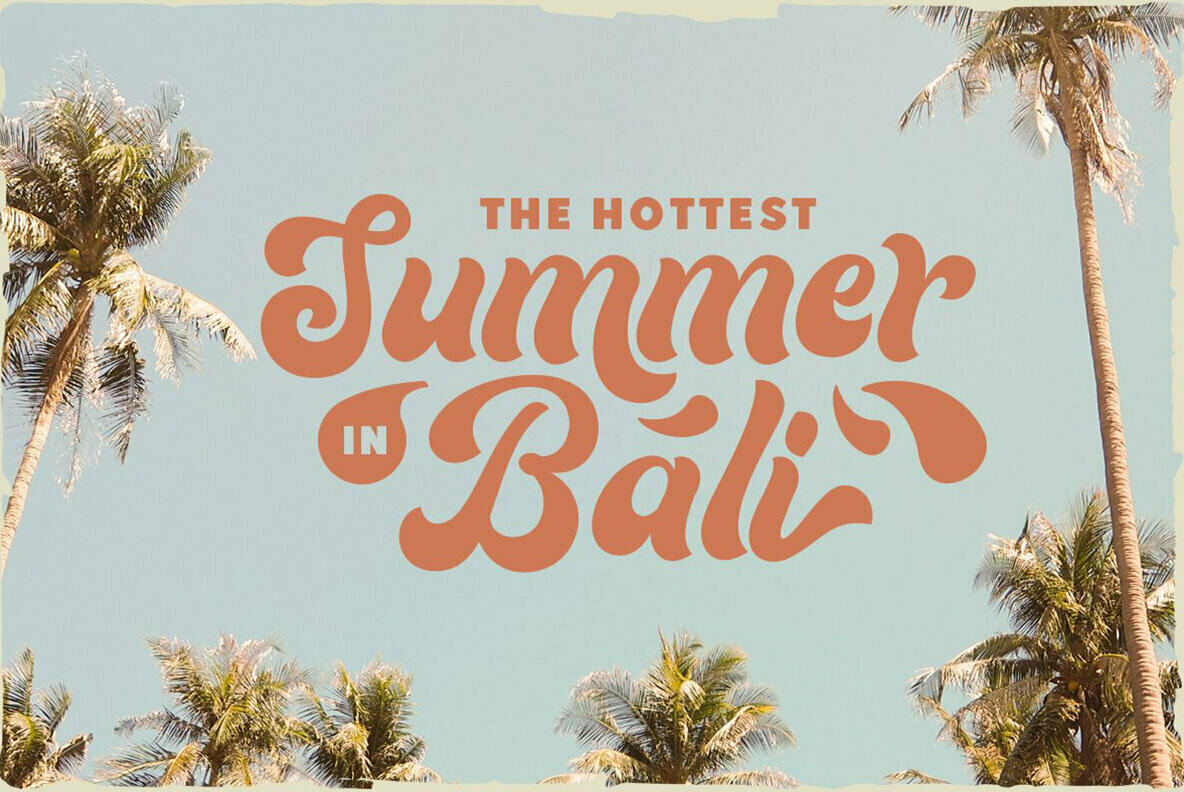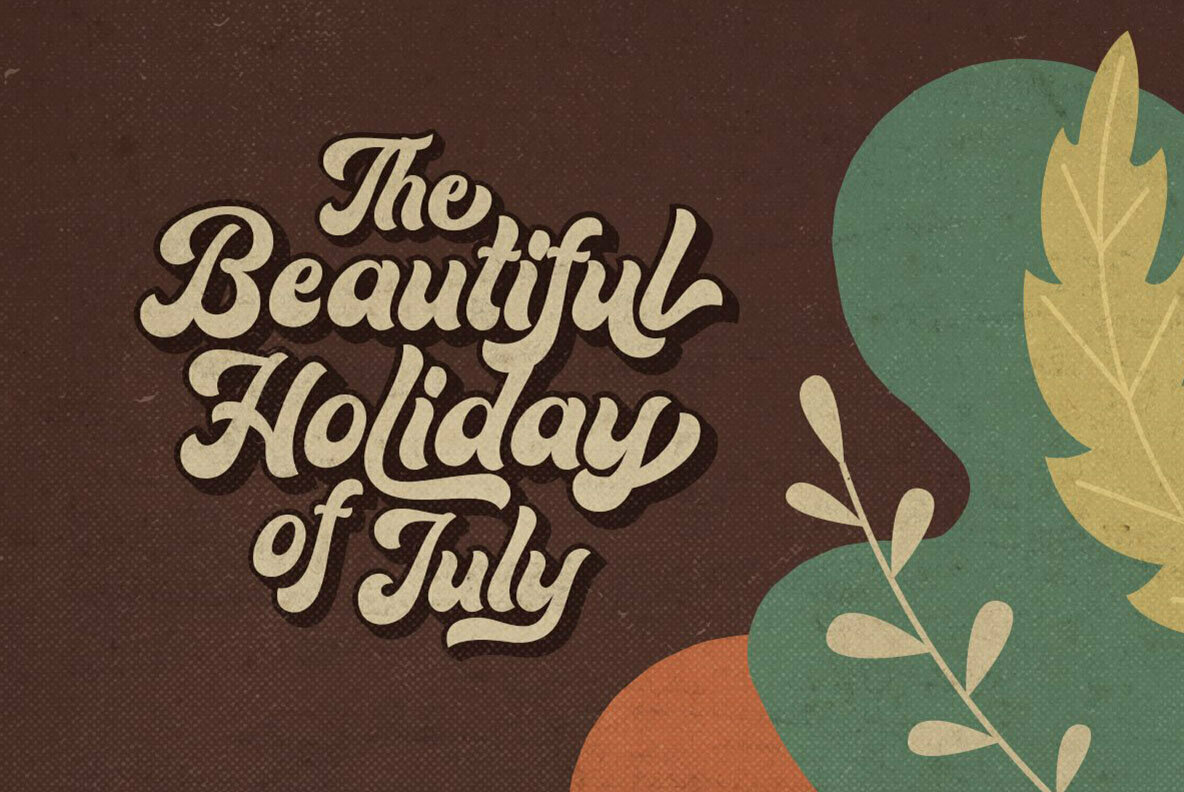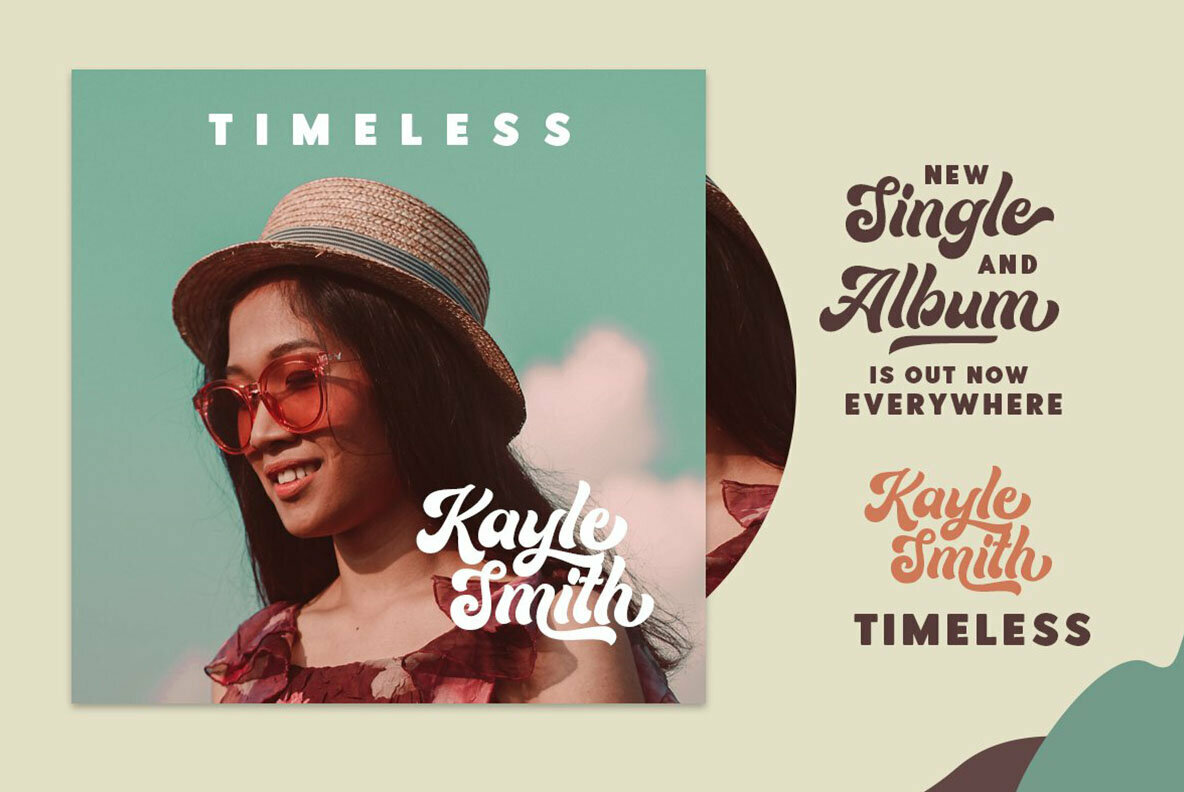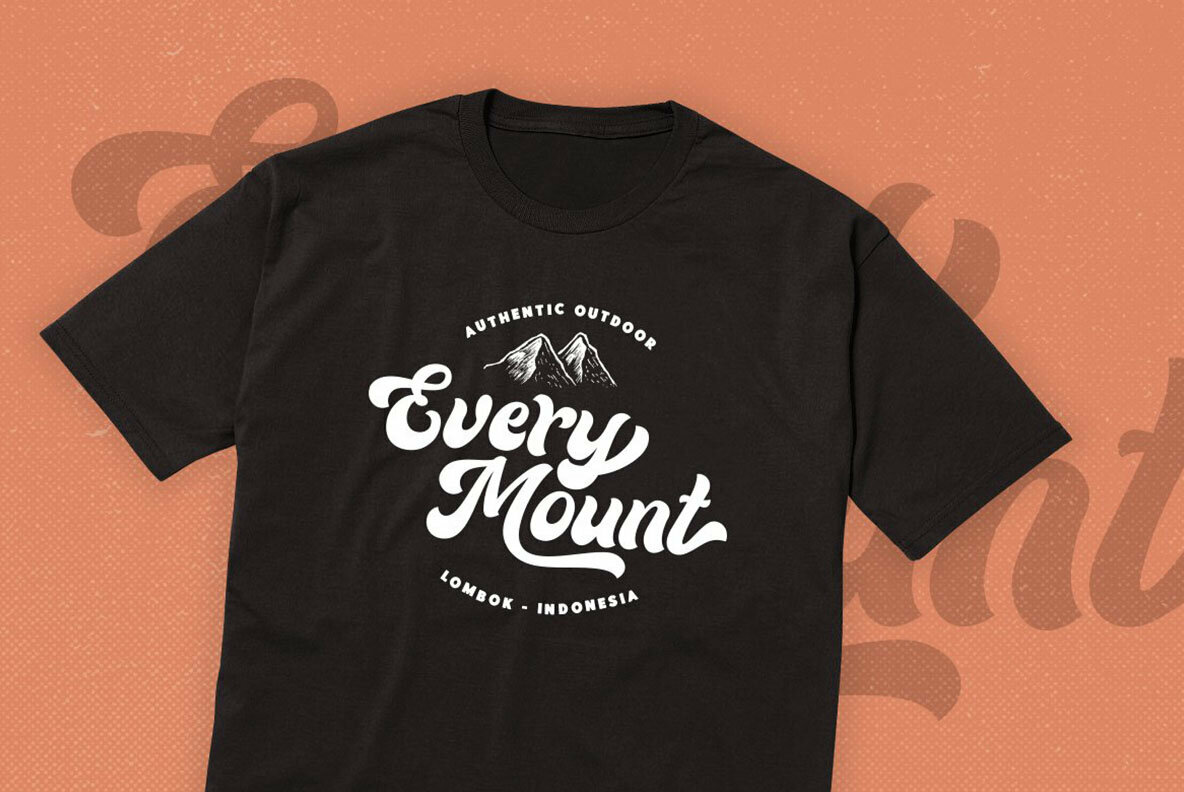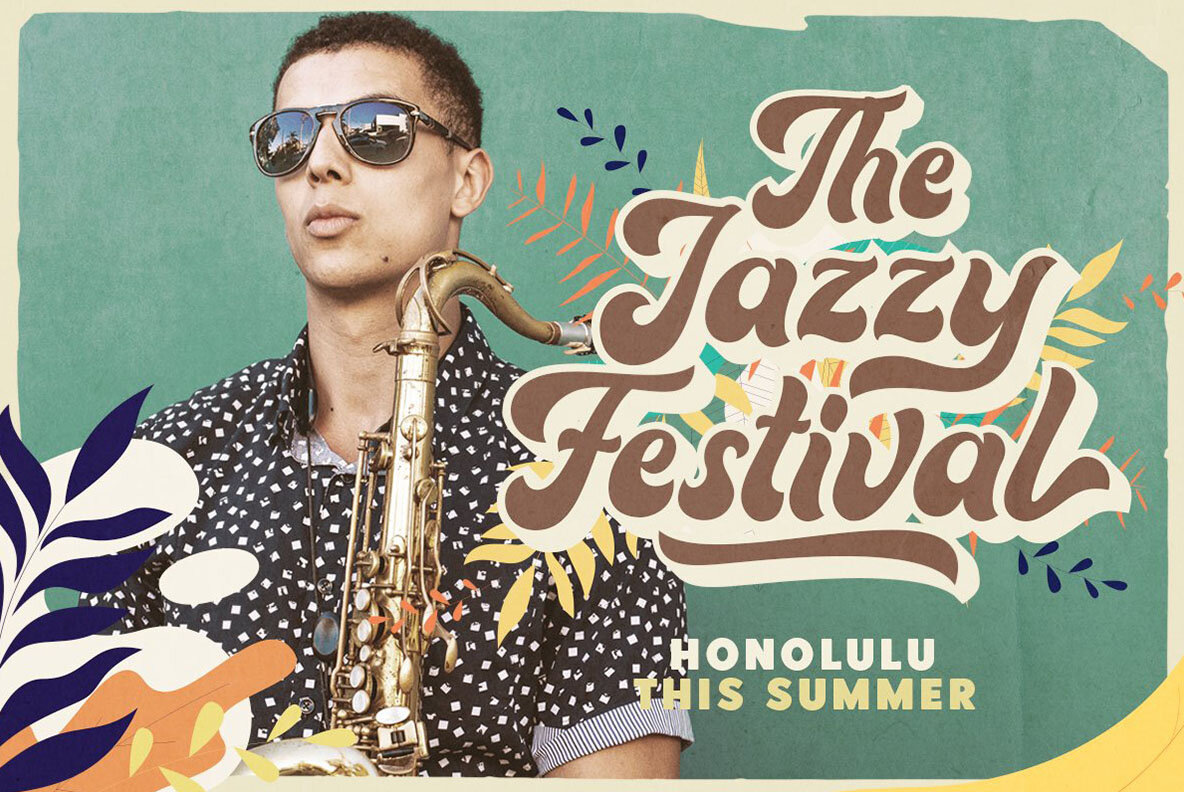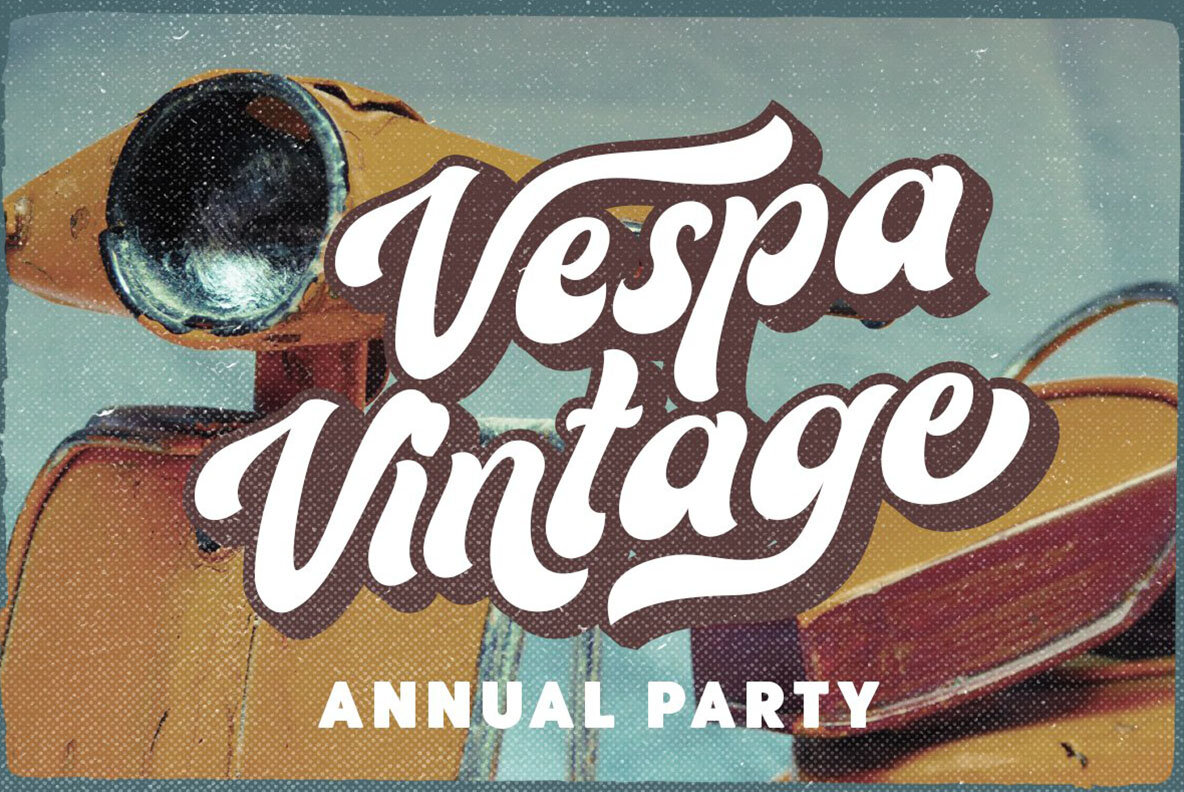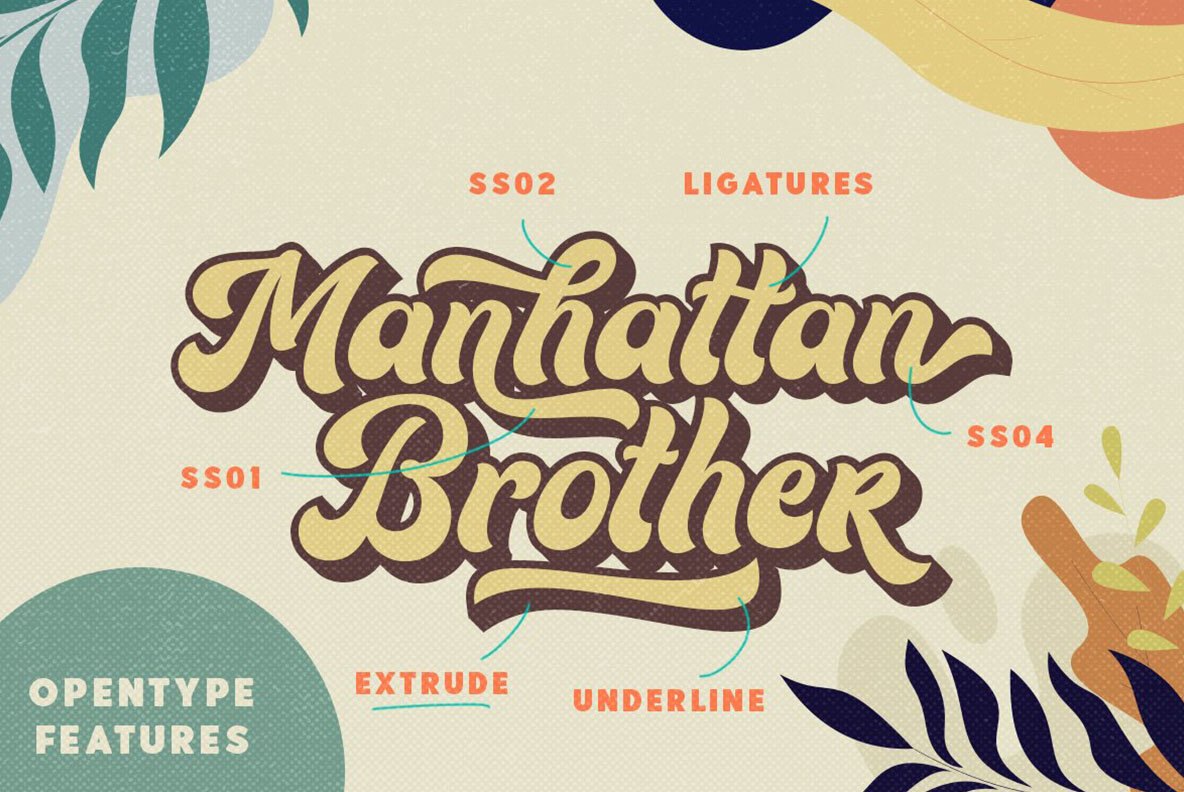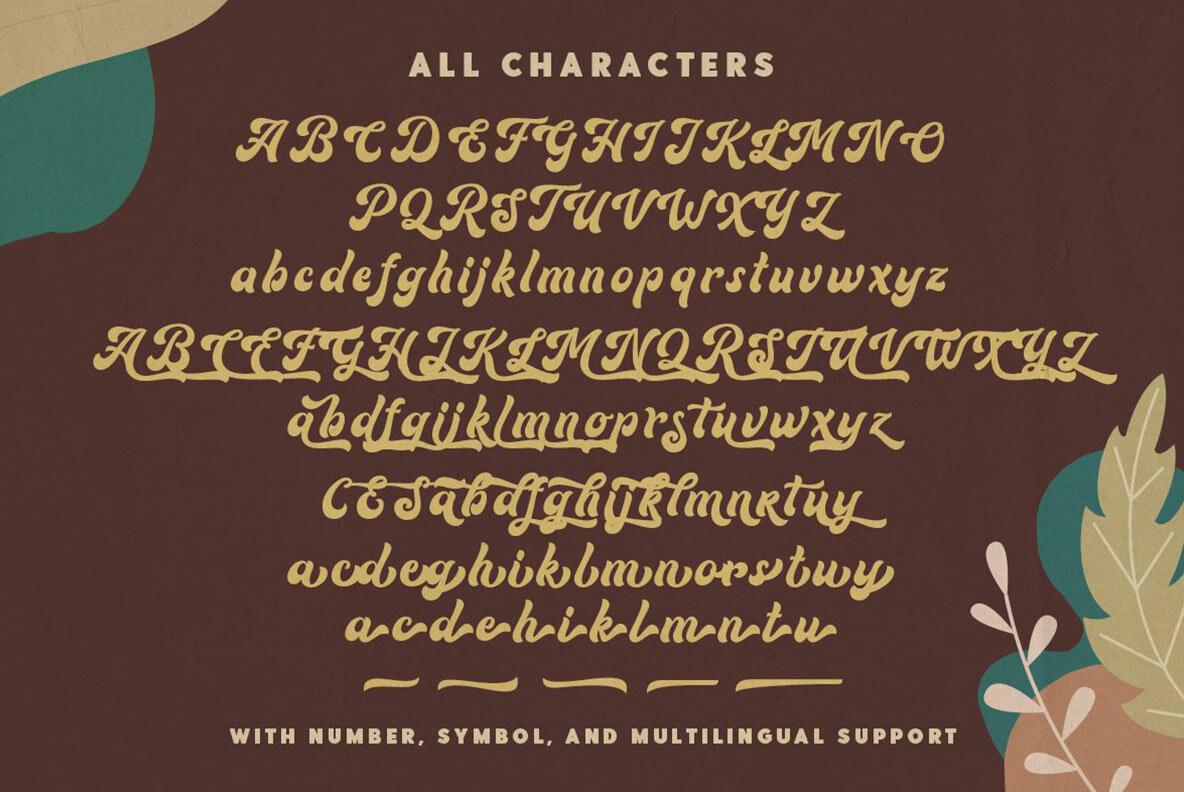
Routhers Font
Routhers by Sarid Ezra captures the essence of vintage design with a bold retro flair. This typeface is ideal for crafting distinctive logos, apparel designs, and engaging quotes. With an extensive range of features including uppercase and lowercase characters, numerals, accents, punctuation, multiple alternates, ligatures, swashes, and underline options, Routhers provides extraordinary flexibility in design applications. Plus, its PUA encoding ensures easy access to all glyphs and characters.Routhers: Bold Retro Font for Unique Design